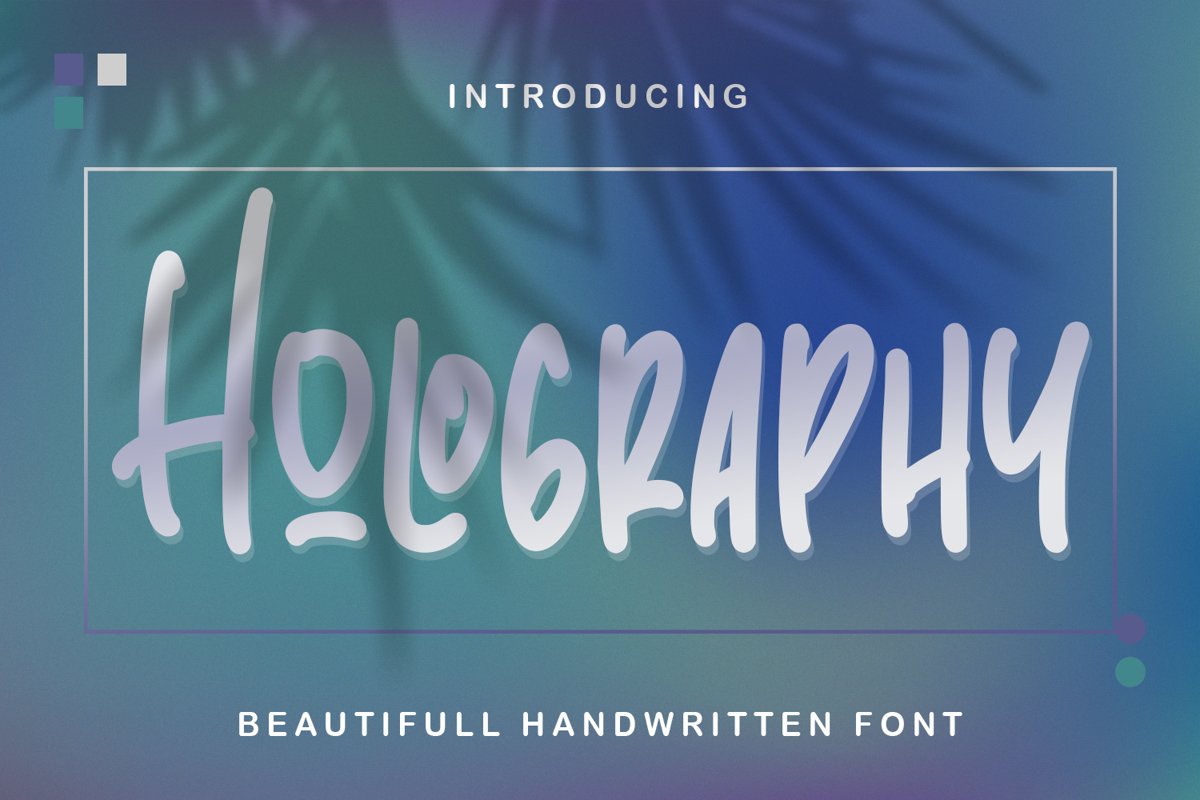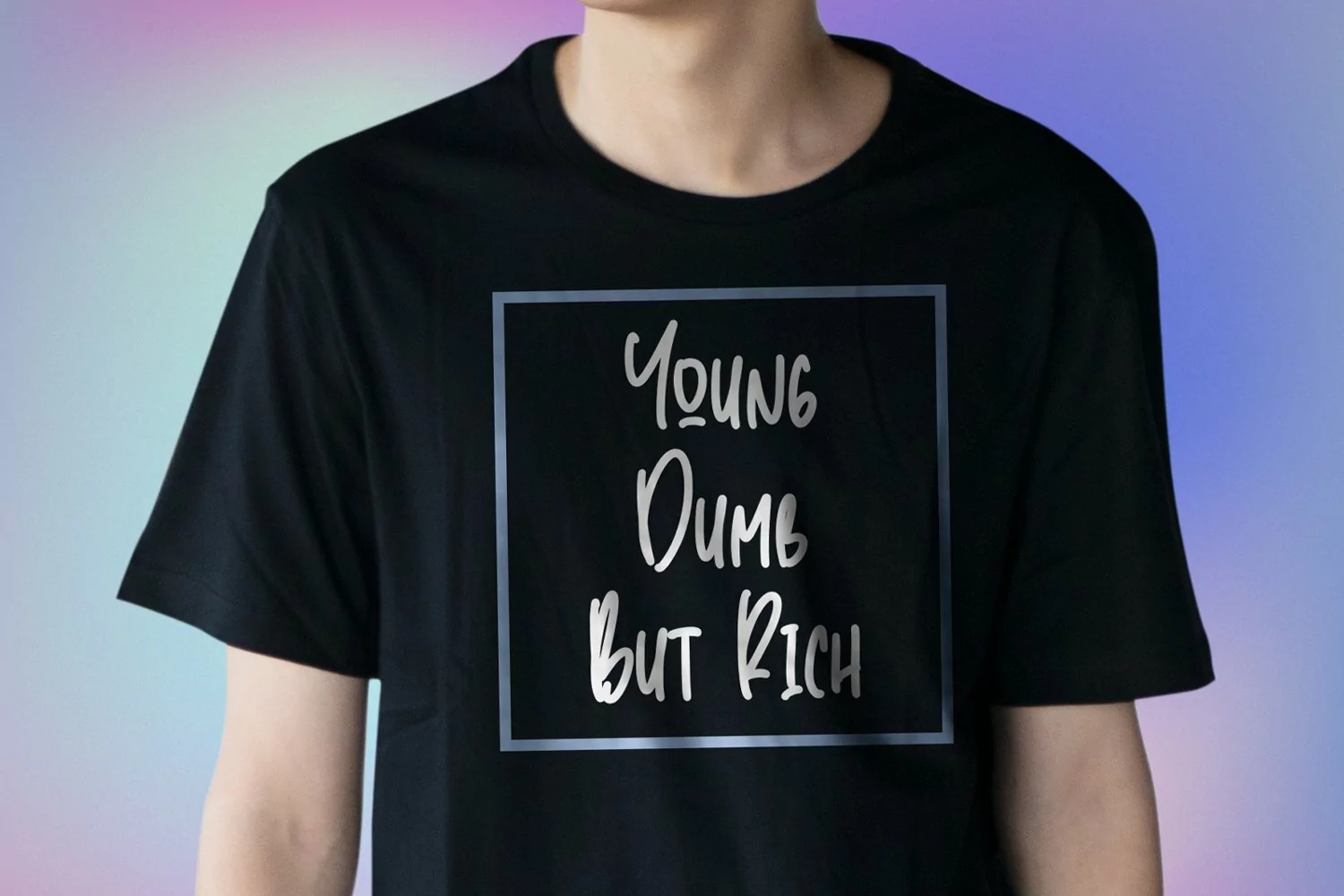
Holography - Beautifull Handwritten Font that contain lowercase, uppercase, symbol, and also support multi language. There’s a lot ligatures in this font. This Font also comes with ligatures, alternates and many more. this font suitable for fashion, branding, catalog and other design what you want.